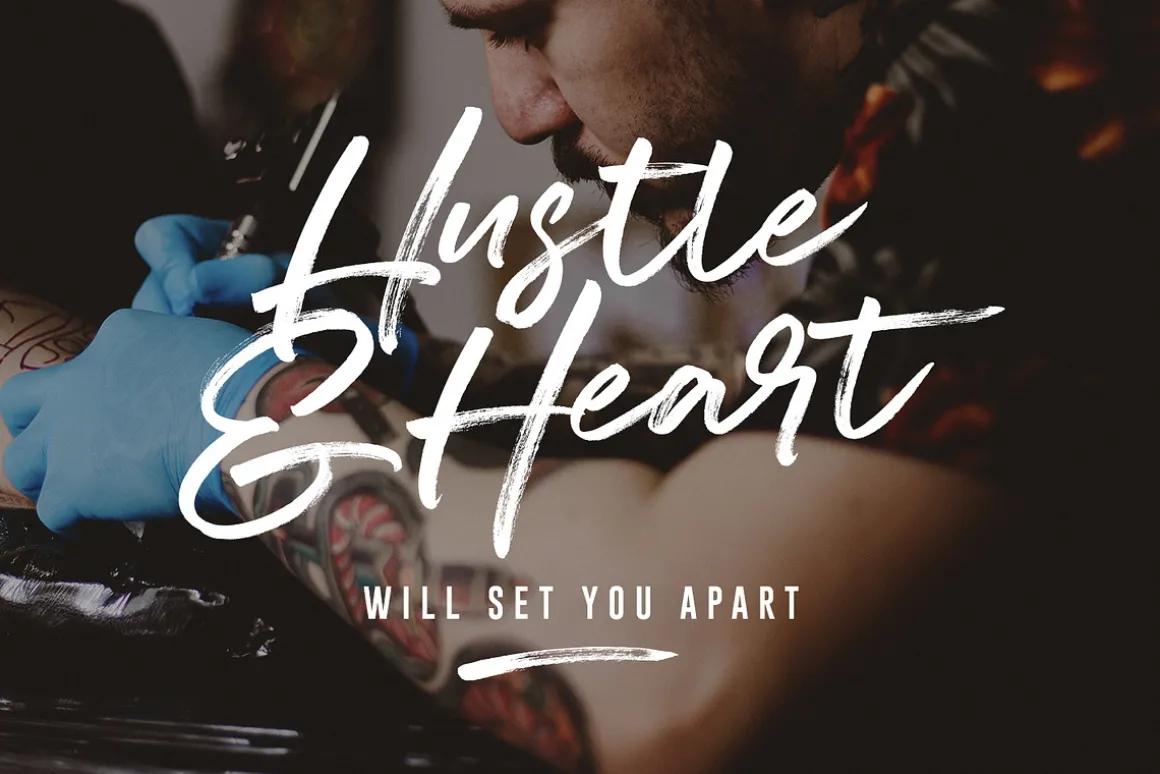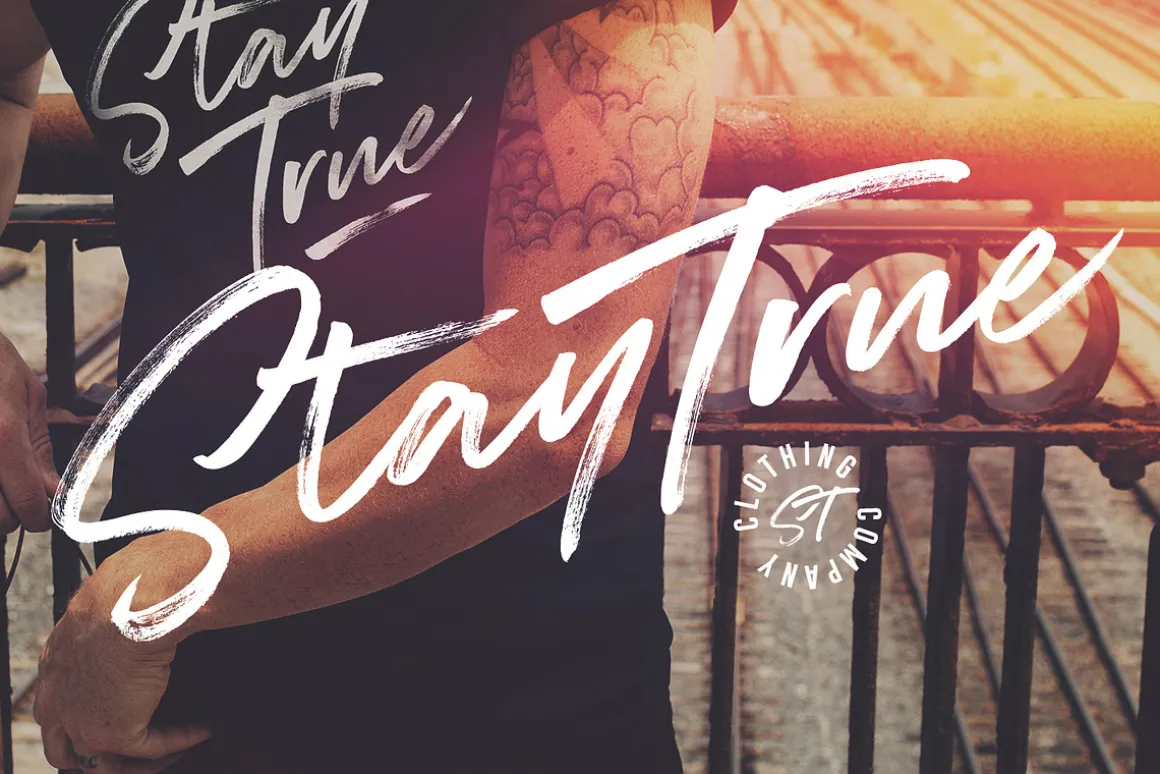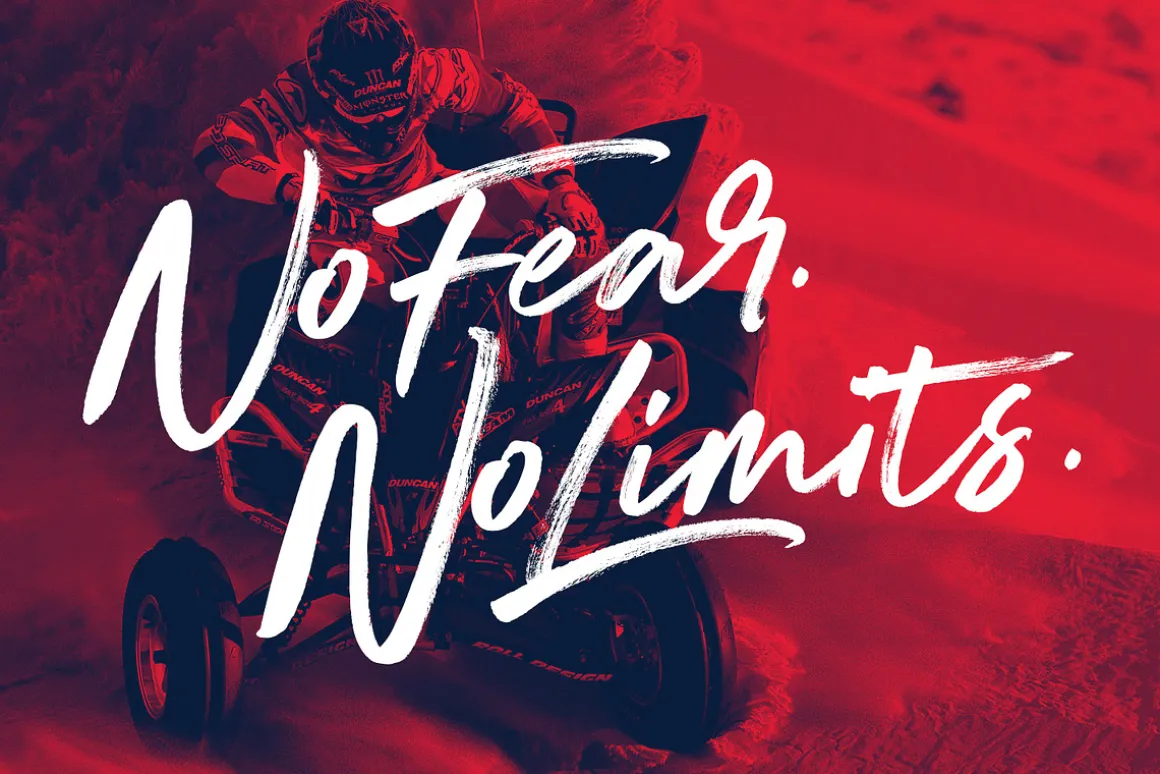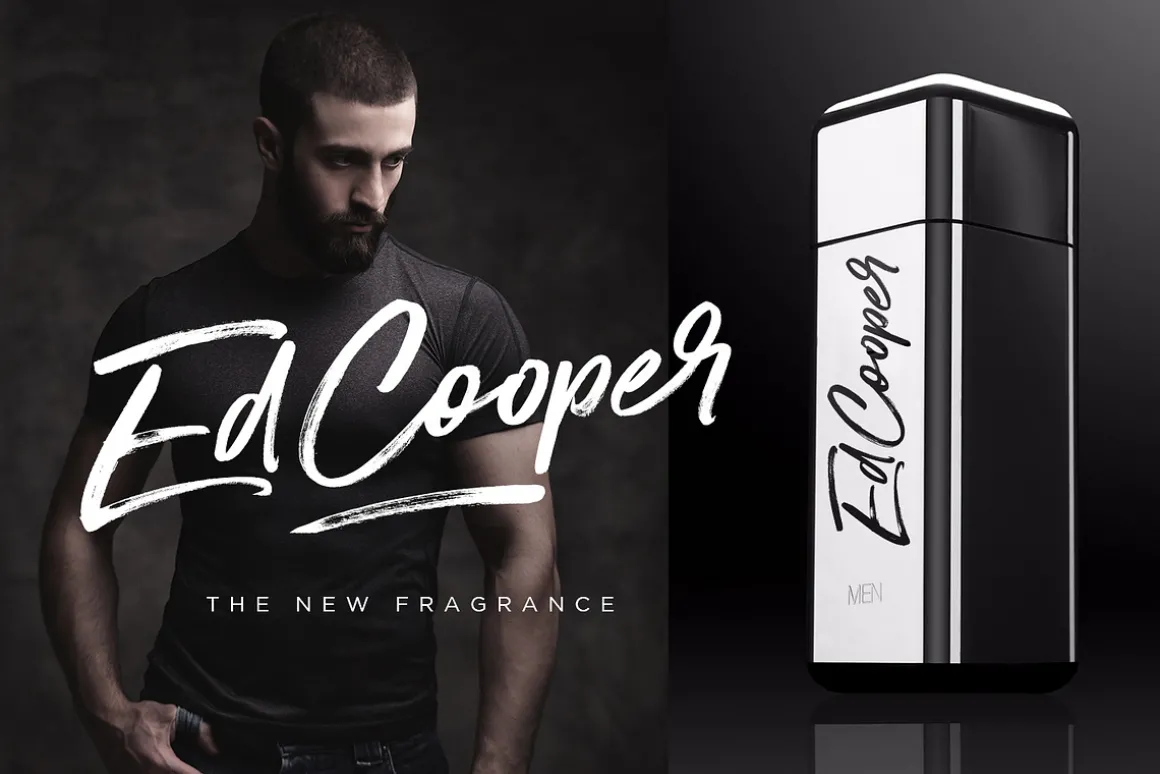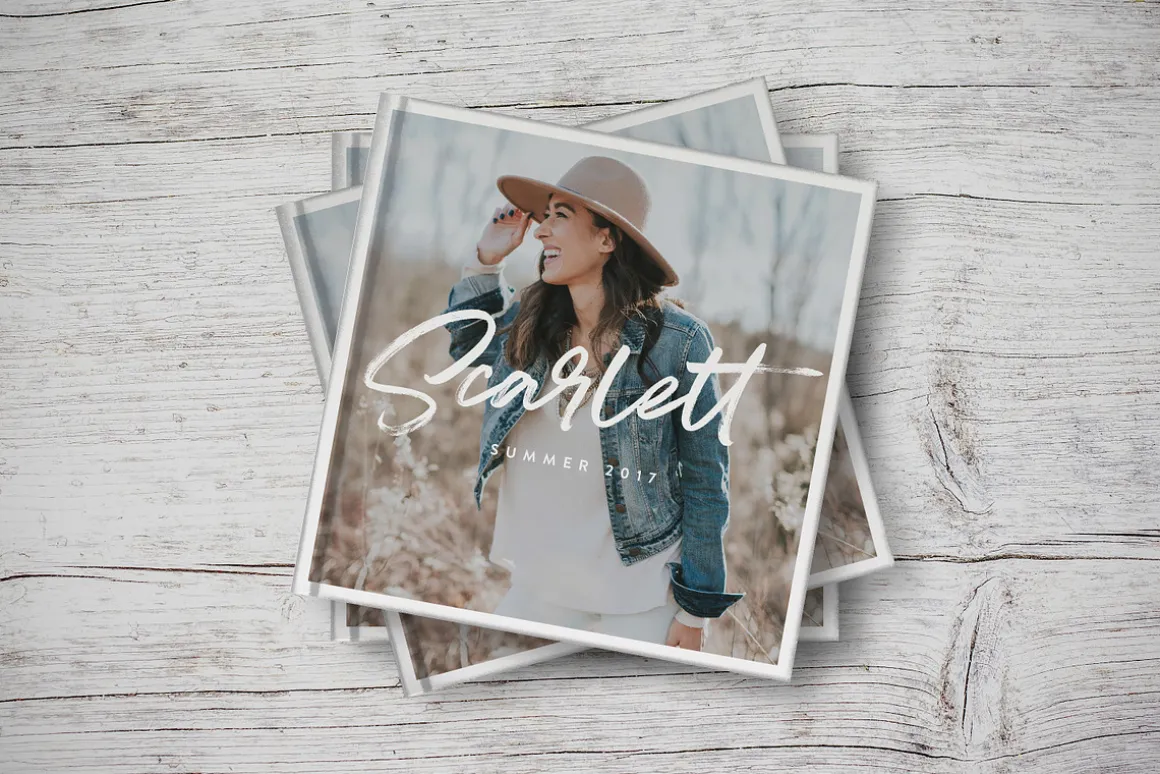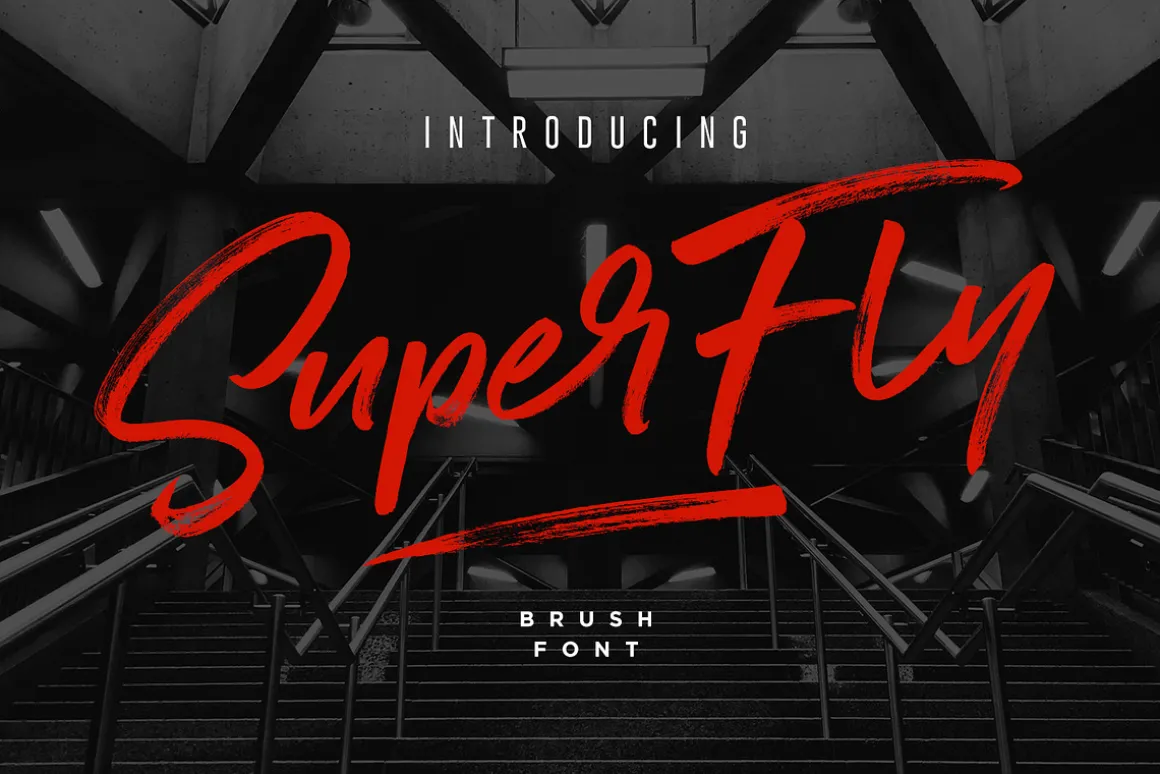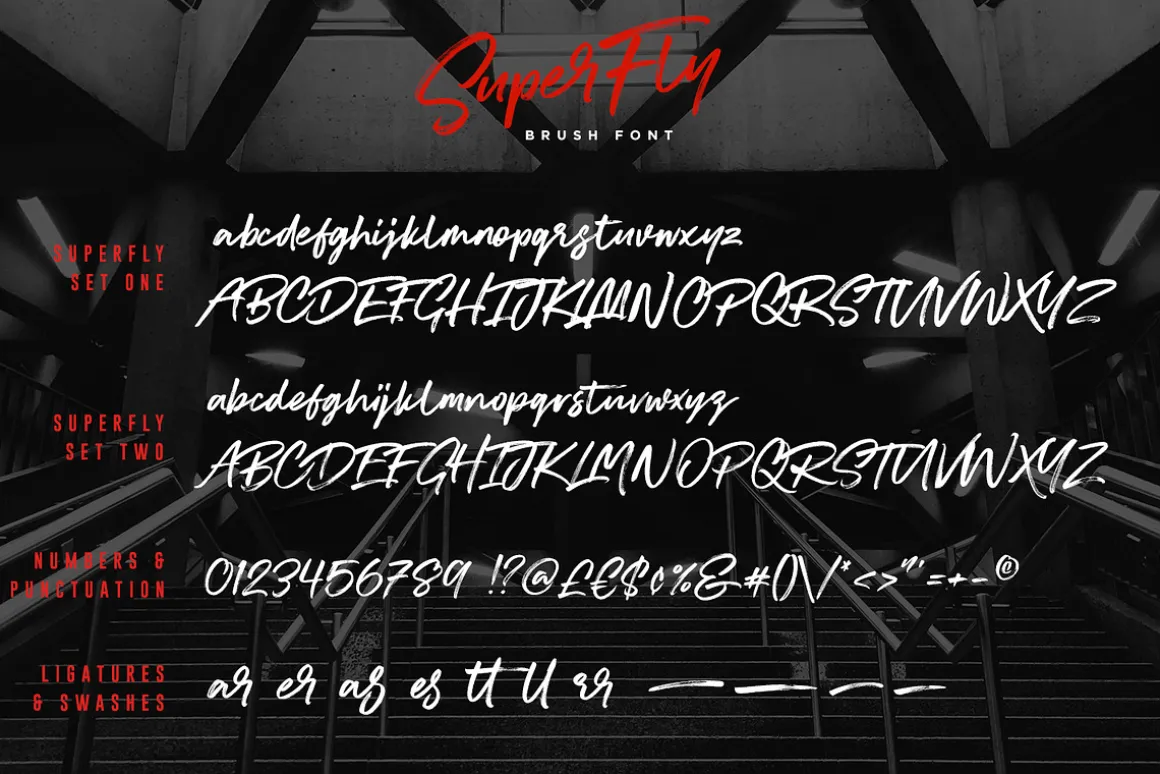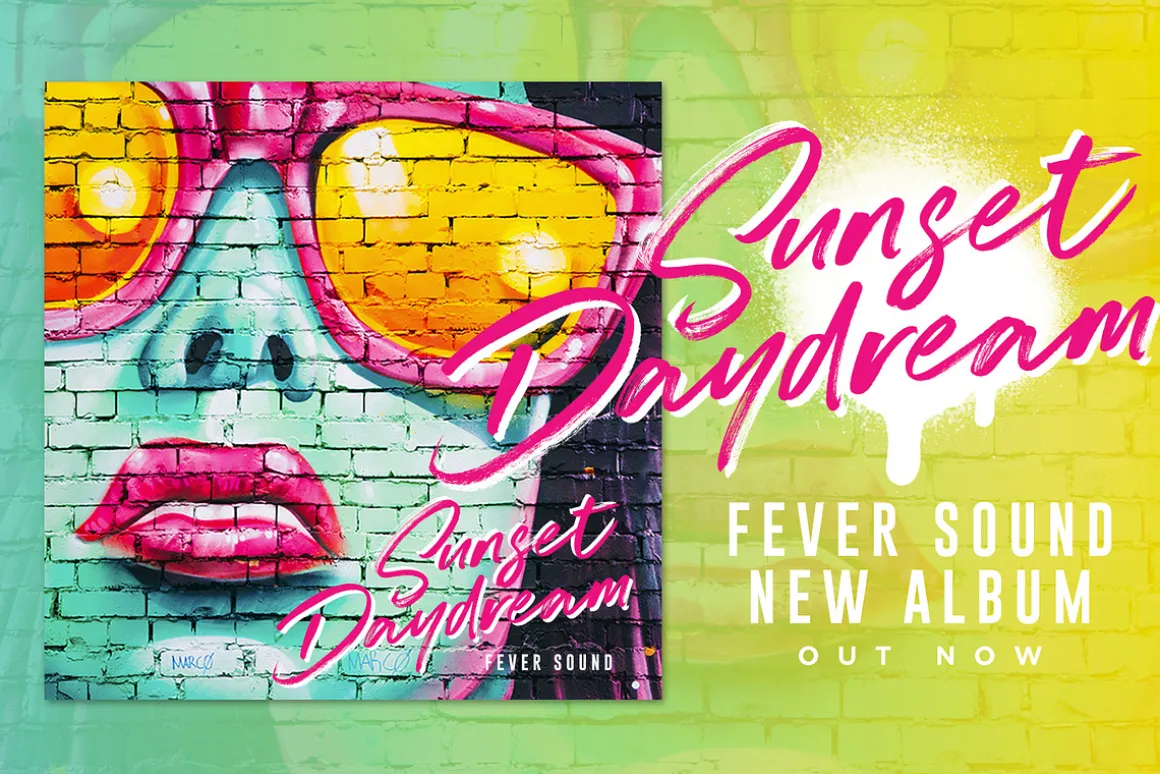
Introducing SuperFly! A cool, classy, and versatile brush font with a loose flow.
SuperFly combines attractive curves with a fresh urban edge; delivering a stylish script which is guaranteed to add an eye-catching appeal to your logo designs, brand imagery, handwritten quotes, product packaging, merchandise & social media posts.
1. SuperFly One • A handmade brush font containing upper & lowercase characters, numerals and a large range of punctuation.
2. SuperFly Two • This is a second version of SuperFly, with a completely new set of upper & lowercase characters. If you wanted to avoid letters looking the same each time to recreate a custom-made style, or try a different word shape, simply switch to this font for an additional layout option.
Swashes can be accessed simply by typing any of the 4 square brackets; [ ] { }
Ligatures (double letters) are available for a select few character combinations. These can be accessed by turning on ‘Discretionary Ligatures’ in OpenType capable software, or via a Glyphs panel.
Fonts include multilingual support for the following languages; English, French, Italian, Spanish, Portuguese,German, Swedish, Norweigen, Danish, Dutch, Turkish, Polish, Finnish, Indonesian, Filipino, Malay.